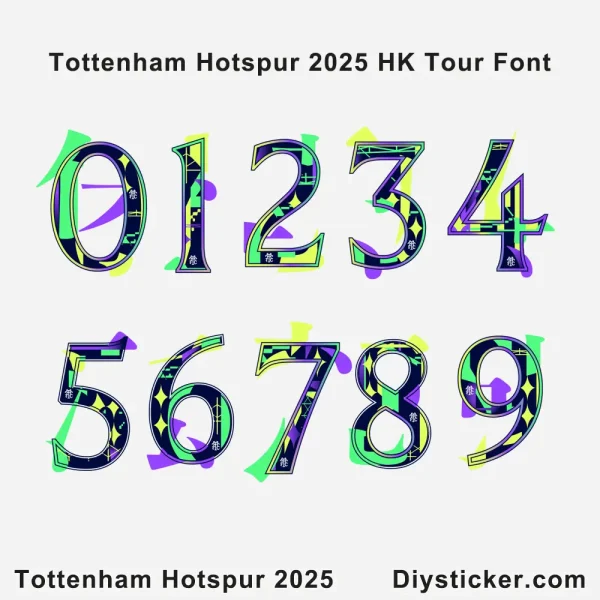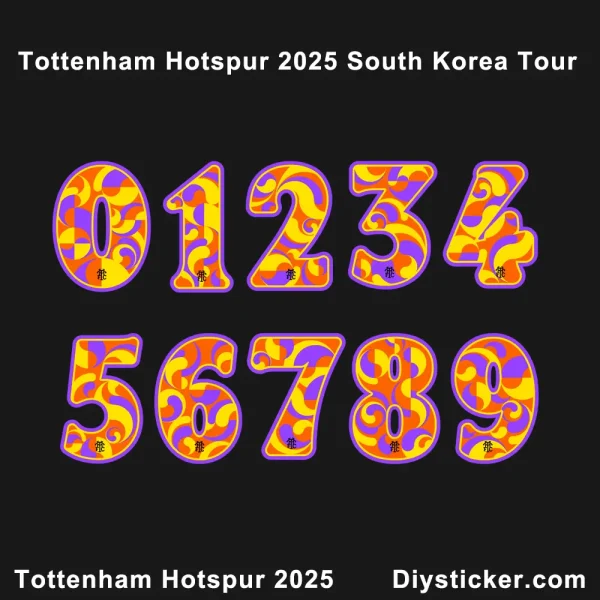
Tottenham 2025 Tour Font Vector Download
Introducing the official Tottenham 2025 Tour font – the exact typography used for Tottenham Hotspur’s 2025 preseason tour branding, including the Hong Kong and South Korea tour visuals. This complete vector font package is designed for fans, designers, and creators who want to bring authentic Spurs tour style into their projects.
Perfect for:
Custom tour posters, banners, and promotional graphics
Fan-made merchandise for the Hong Kong and South Korea tours
Social media content and preseason hype visuals
Spurs tour-themed branding and supporter projects